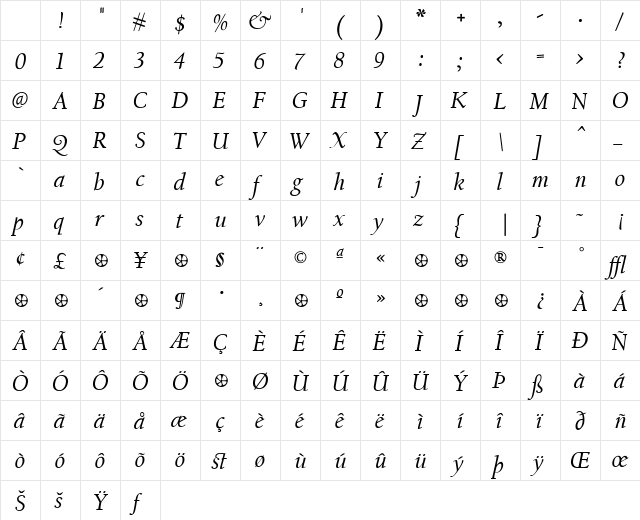
Complete CalifornianText Italic glyph index. Displaying only characters natively supported by CalifornianText Italic font.
CalifornianText is a composed and adaptable typeface that performs quietly and consistently across a wide range of design contexts. The slanted form adds forward momentum and visual energy.
Pro Tip: Use CalifornianText for emphasis, pull quotes, and subheadings where its slanted energy can add rhythm to the layout.